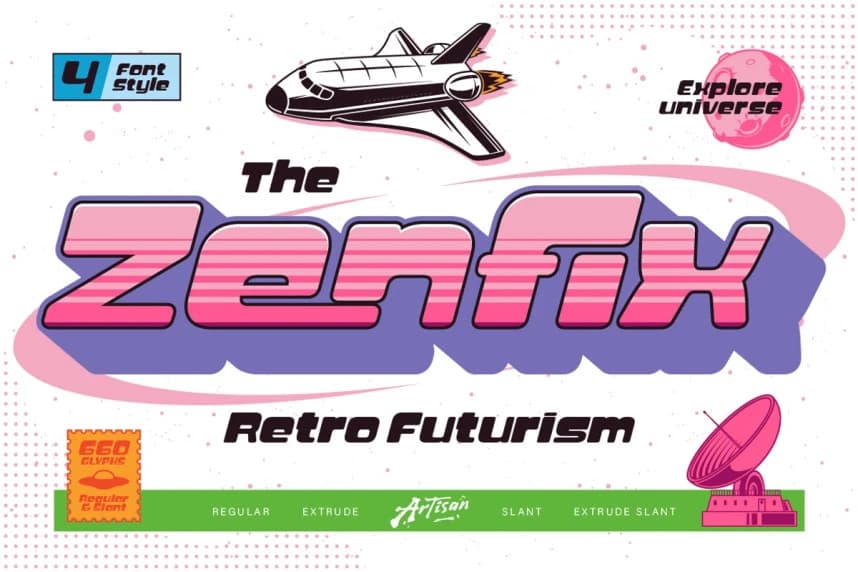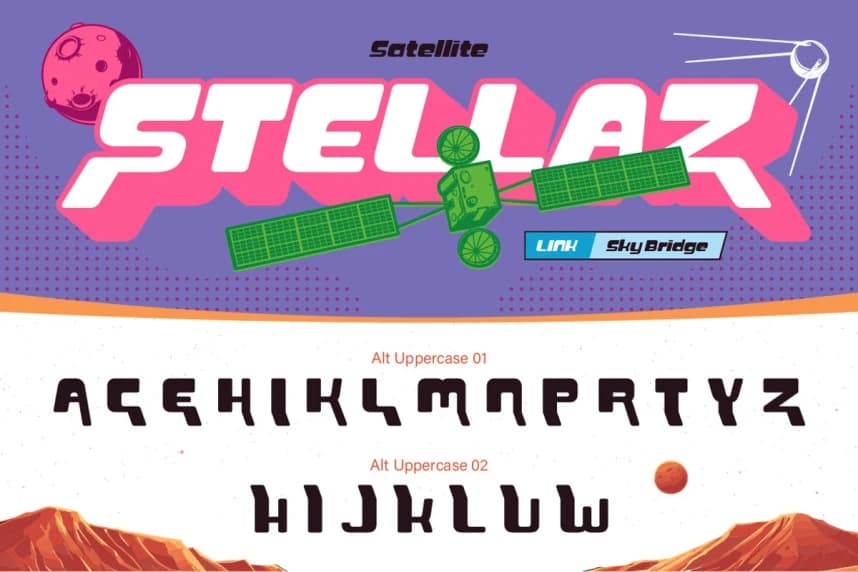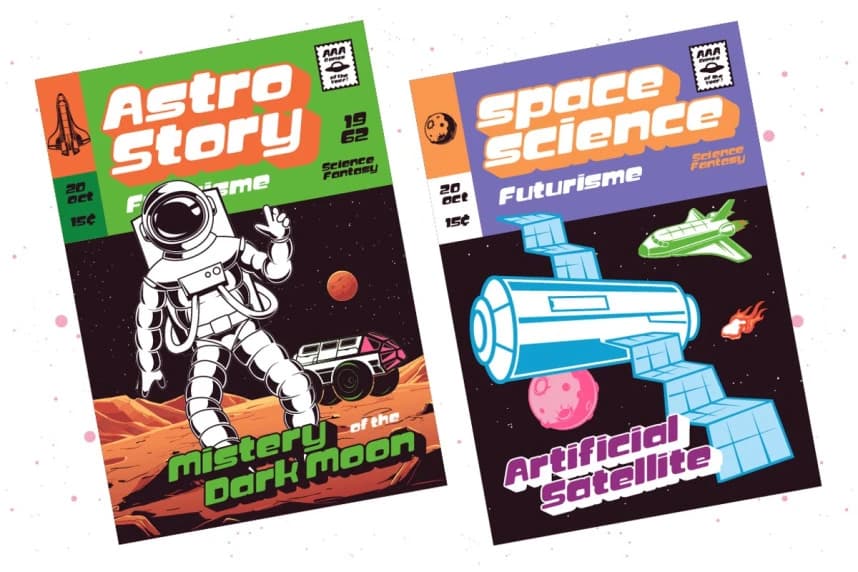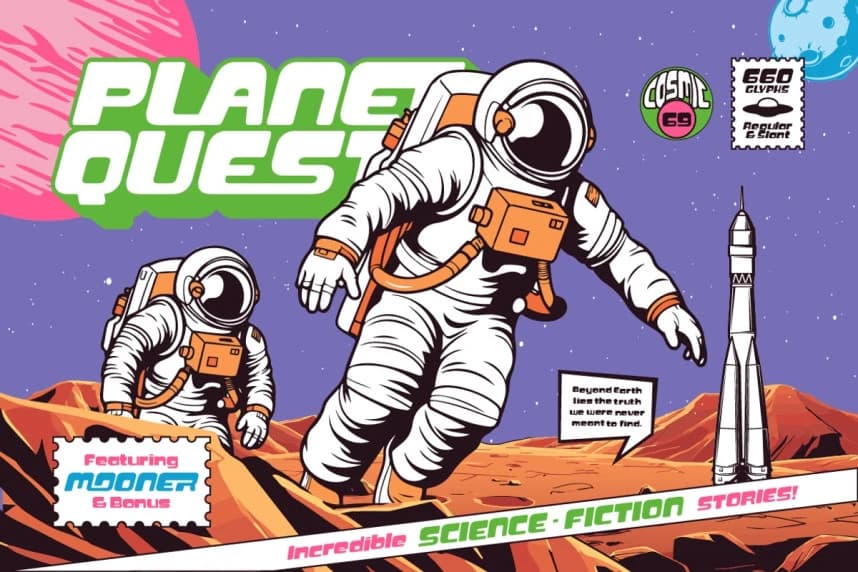
Zenfix Font
Zenfix Font, a bold retro futuristic display font inspired by classic sci-fi aesthetics, space exploration, and vintage futuristic design. With its chunky shapes, rounded edges, and striking extrude style, Zenfix brings a perfect blend of nostalgia and modern energy into your creative projects.